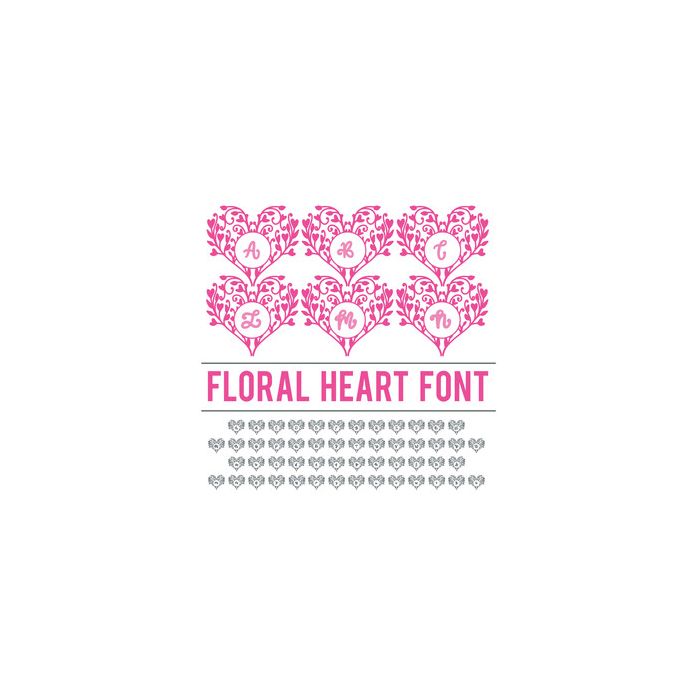
floral heart monogram font
This font comes in OTF format. You will receive a floral heart frame with a monogram letter inside. Uppercase A-Z and lowercase a-z.